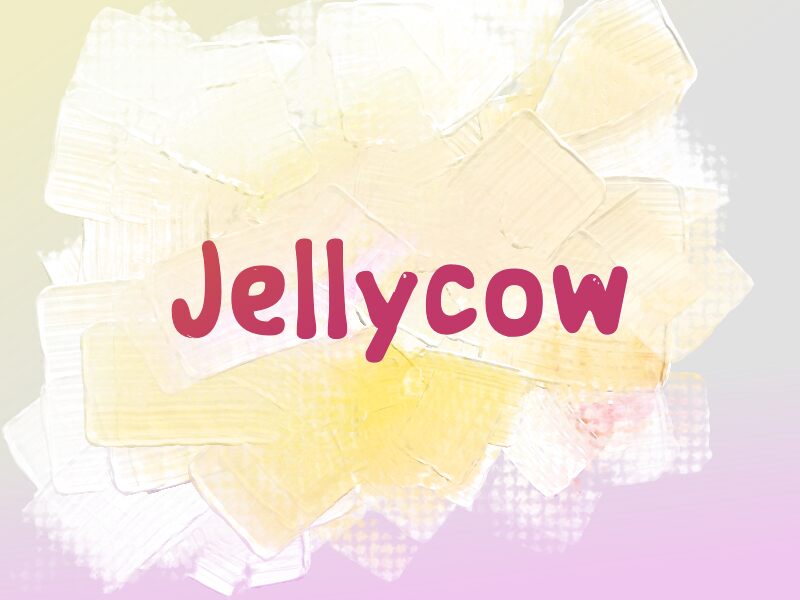
Jellycow
Jellycow font by wep is a cartoon display typeface marked by its quirky and casual hand-drawn appearance. The childlike inspiration gives it an overall friendly tone that appeals to the young ones and fun-loving adults equally. Curved centered and rounded corners, Jellycow font marks smooth transitions with slightly tilted pronouns that would give you means for memorable texts.
All fun projects can benefit from this free display font: logos, brand text, labels, print covers on any material (paper or plastic), packs and packages, baby clothing taglines,… etc. Jellycow works on store signs as well as digital signage media in social media posts or website headers.